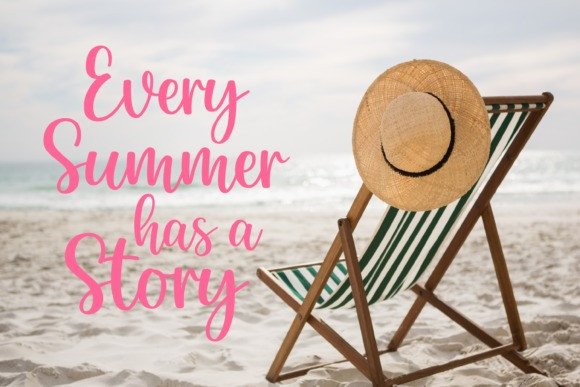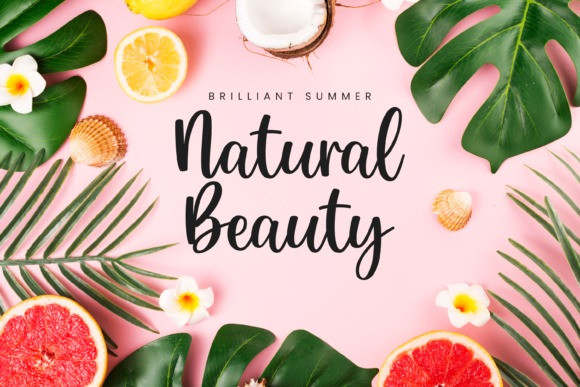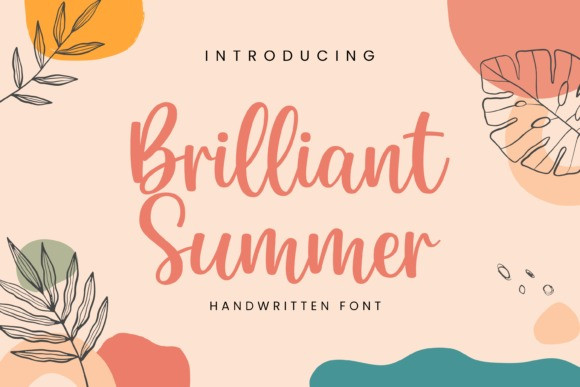
Brilliant Summer Font
Brilliant Summer Font, is an enchanting handwritten font. This lovely and fresh script font has a wide spectrum of applications ranging from greeting cards to headlines and is guaranteed to add a romantic feel to your next projects.